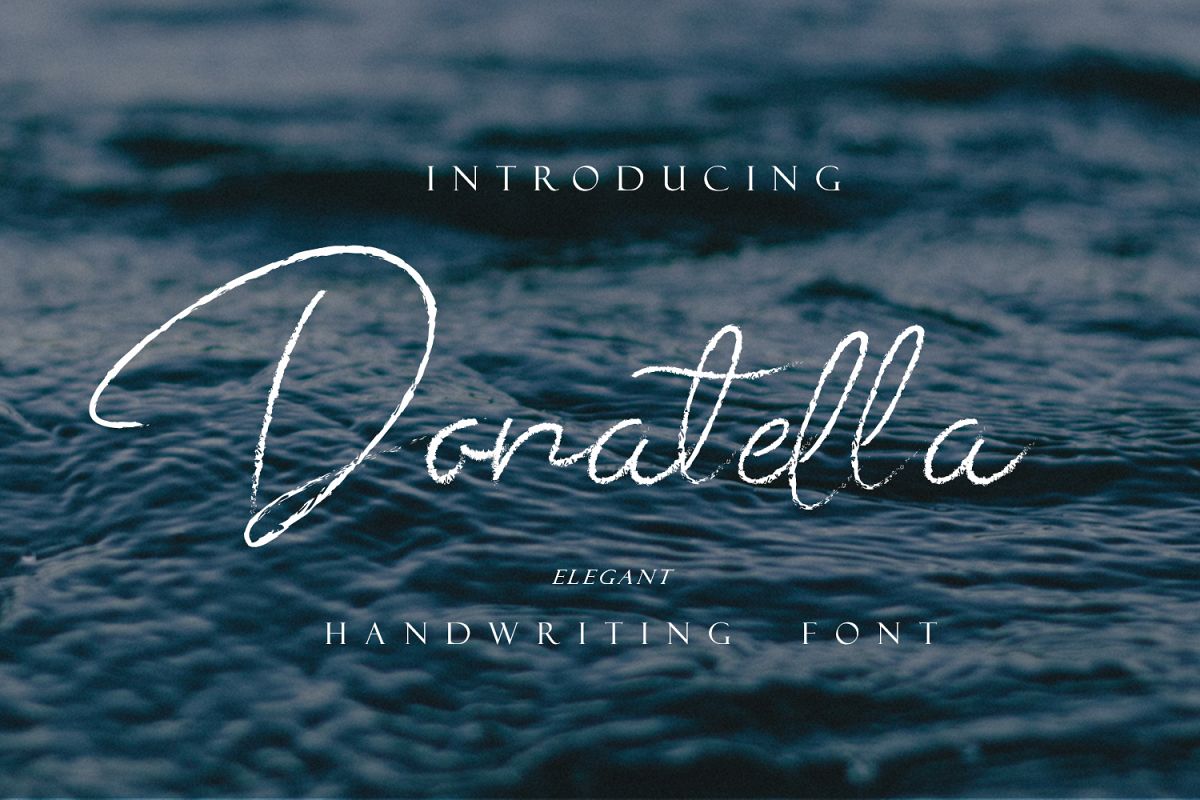
Donatella - Handwritten Font
Donatella - Handwritten Fonts are elegant handwritten fonts, with texture, to be as authentic as possible while still being able to read clearly on your project.
Donatella is a truly versatile font - combining sophisticated, casual and even fun sides depending on the style you use.
A complete set of upper and lower case letters, and a second set of lowercase letters, Donatella - Handwritten Font also has 37 Ligatures